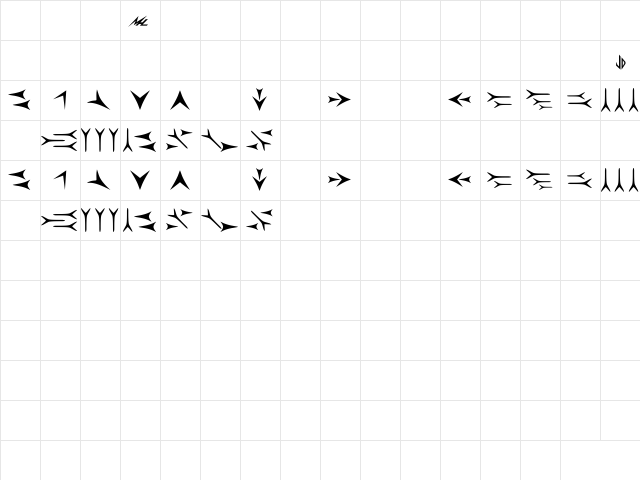
Llort Bold Font Preview
Llort Bold
Design Context for Llort Typeface
Llort is a composed and adaptable typeface that performs quietly and consistently across a wide range of design contexts. The heavy weight commands attention and anchors typographic hierarchies.